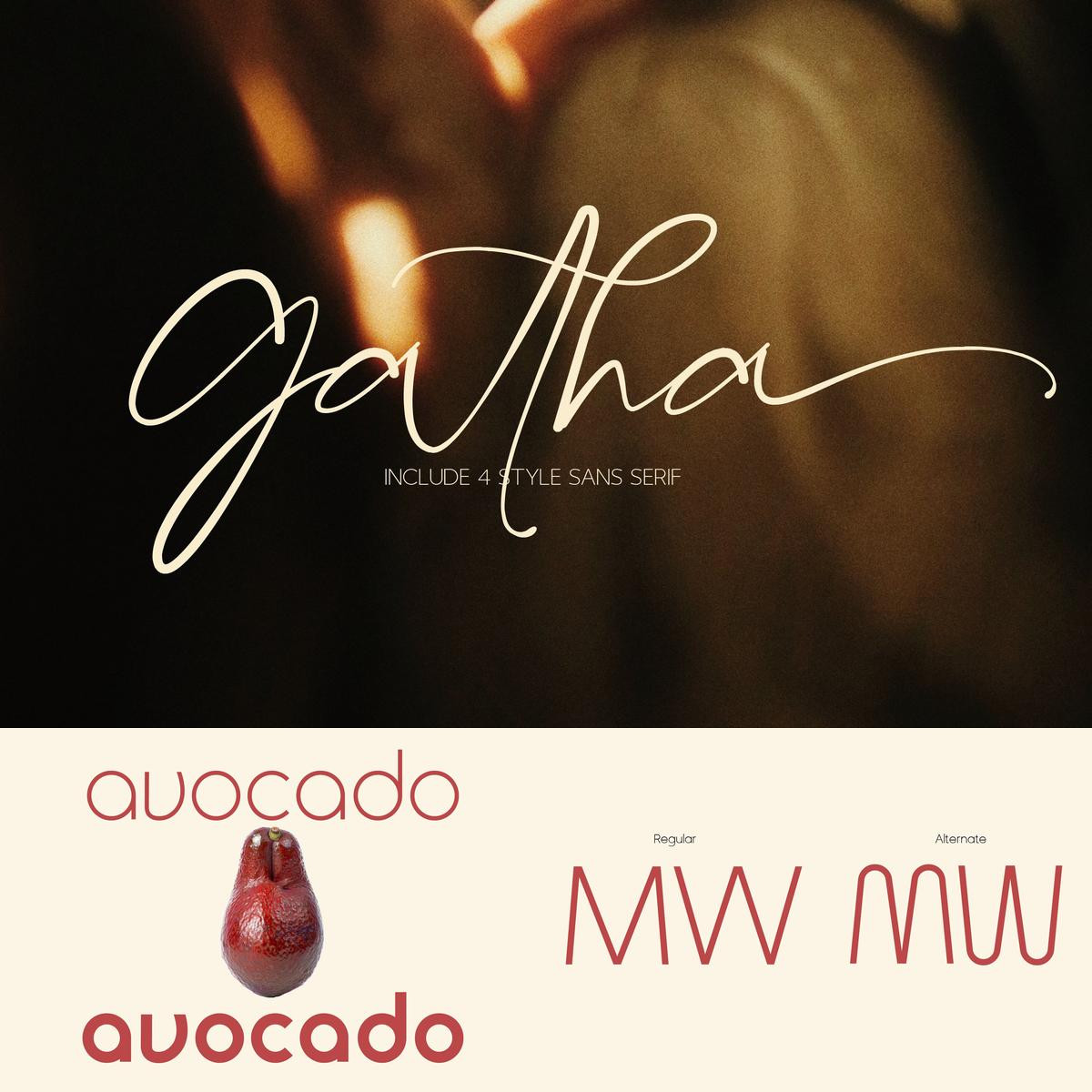
**Gatha** is a fun font duo that includes signature scripts and elegant, soft sans that grab 4 styles – its fit and ready to go together for your next design! Gatha includes a complete set of beautiful upper and lowercase letters, numbers, a wide variety of punctuation marks, ligatures, and super pretty prefixes as well as a final sweep thus providing a realistic handwriting style. These typefaces are versatile and can be used successfully in Magazines, Posters, Branding, Websites, etc.